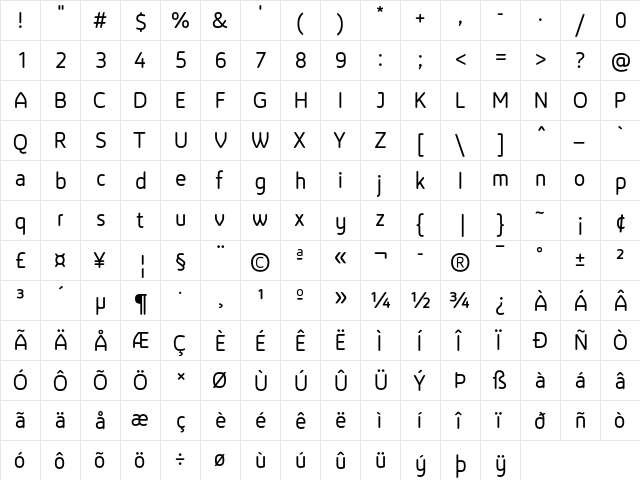
LT Reponse Rounded Two Regular
Regular · Daniel Lyons Entertainment / LyonsType Dan P. Lyons ·
DesignerDan P. Lyons
Design Context for LT Reponse Rounded Two Typeface
LT Reponse Rounded Two softens its letterforms with rounded terminals, giving it an approachable, friendly quality that works well in consumer-facing and digital contexts. Its slender proportions lend an understated elegance to any composition.
Well-suited to UI design, mobile interfaces, and any brand that wants approachability without sacrificing clarity.
Font Pairing: Pairs well with a rounded or humanist sans for body copy, maintaining the friendly tone without relying on LT Reponse Rounded Two to carry extended reading.
Pro Tip: Use LT Reponse Rounded Two for UI elements, app interfaces, and anywhere a friendly, approachable tone needs to be maintained without sacrificing clarity.